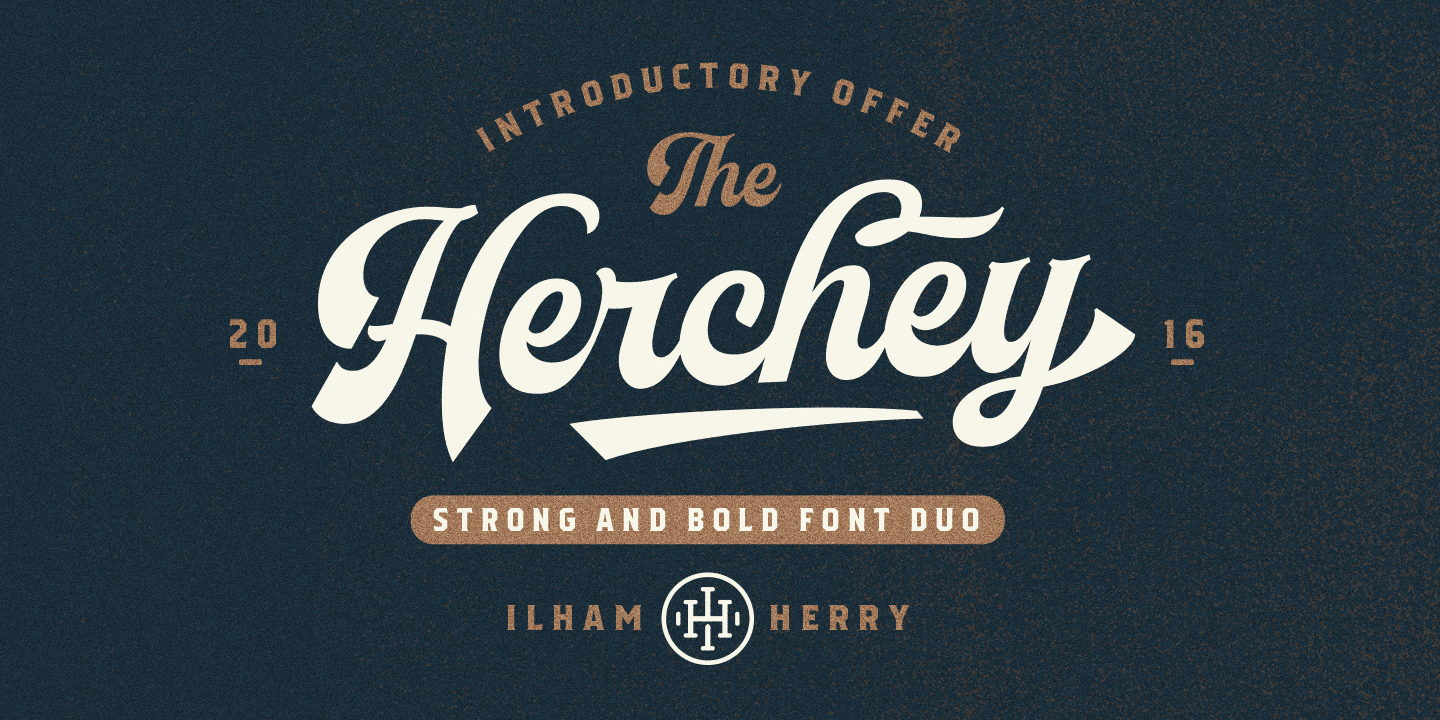
Herchey Font is perfect for sweet confectionery branding, chocolate product packaging, dessert bakery logos, candy shop signage, indulgent treat marketing, nostalgic sweet campaigns, artisan chocolate labels, and delightful food service designs. This charming typeface excels in applications requiring sweetness and indulgent appeal that captures the essence of confectionery delights and sugary satisfaction through warm, inviting visual character.
What makes Herchey Font exciting is its irresistibly sweet personality that perfectly captures the essence of confectionery joy and chocolate indulgence through warmly crafted letterforms. The font features rounded character construction with sweet curves and inviting presence that instantly evokes feelings of comfort, indulgence, and nostalgic sweetness perfect for brands celebrating confectionery traditions and delightful treat experiences.
The Herchey Font family includes regular and sweet variations with confectionery-inspired styling elements, offering designers comprehensive tools for creating delightful sweet compositions. The family provides consistent confectionery aesthetic with varying sweetness levels for versatile candy branding and dessert product marketing requiring genuine sweet appeal and indulgent character presence.
The sweetly crafted letterforms of Herchey Font ensure excellent readability while maximizing confectionery charm and sweet appeal, making it ideal for candy packaging, dessert signage, and indulgent marketing materials. This delightful typeface combines confectionery authenticity with modern technical standards for outstanding performance in contemporary design projects requiring genuine sweet character and chocolate-inspired visual appeal.